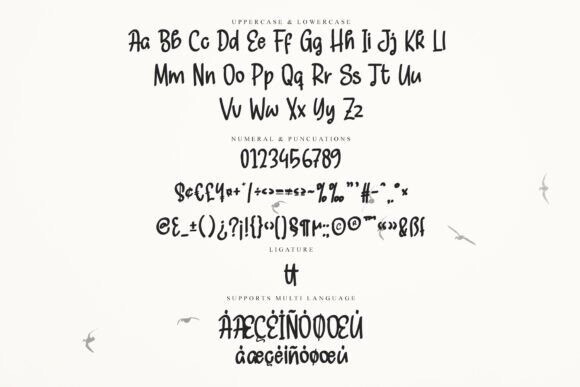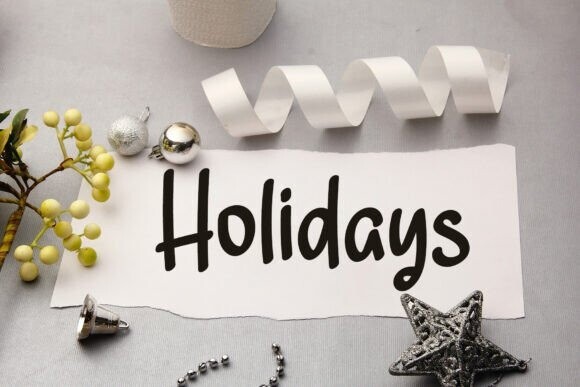
Grandma Handwriting Font
Grandma Handwriting Font is a simple handwritten font. This is a straightforward and minimalist sans-serif font that emphasizes simplicity and readability. With its clean lines and unadorned letterforms, this font offers a versatile and practical option for a wide range of design projects. Whether used for branding, editorial design, web design.